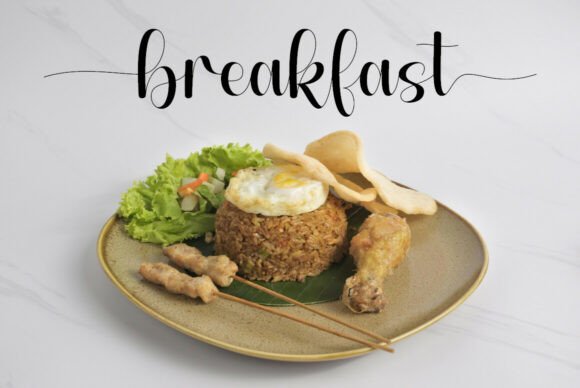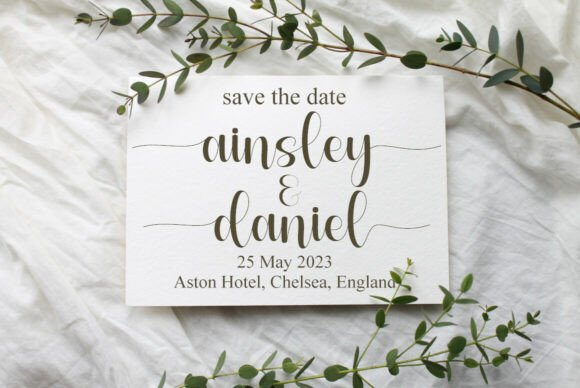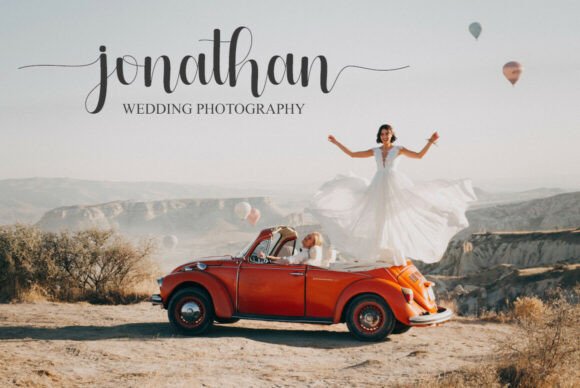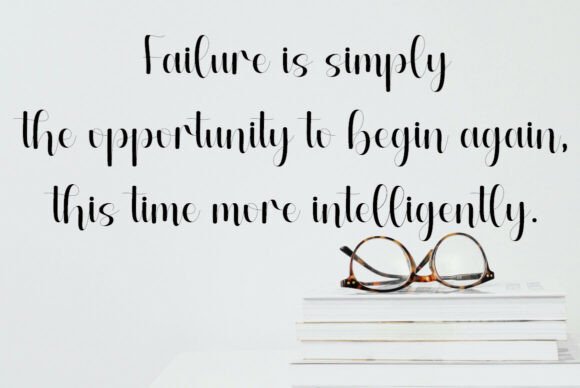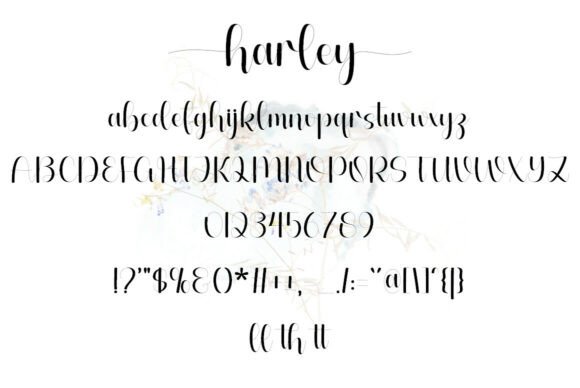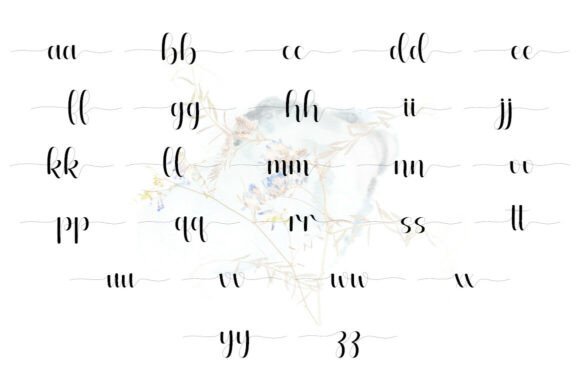
Introducing Harley Font: Your New Go-To Handwritten Font
Are you tired of using the same old fonts for your designs, crafts, and presentations? Look no further! Harley Font is a simple and friendly handwritten font that’s perfect for any occasion. In this article, we’ll dive into the features and benefits of Harley Font, and explore how it can become your new favorite font.
What is Harley Font?
Harley Font is a beautiful, handwritten font that’s designed to be versatile and easy to use. Whether you’re a designer, crafter, or simply someone who loves to create, Harley Font is the perfect addition to your font collection. Its simple and friendly design makes it suitable for a wide range of projects, from digital designs and presentations to greeting cards and crafts.
Key Features of Harley Font
- PUA Encoded: Harley Font is PUA (Private Use Area) encoded, which means you can access all of the glyphs and alternates with ease. This makes it simple to customize your text and add a personal touch to your designs.
- Simple and Friendly Design: Harley Font has a clean and approachable design that’s perfect for creating a warm and inviting atmosphere in your designs.
- Versatile: Harley Font is suitable for a wide range of projects, from digital designs and presentations to greeting cards and crafts.
Benefits of Using Harley Font
So, why should you choose Harley Font for your next project? Here are just a few benefits of using this amazing font:
- Easy to Read: Harley Font is clear and easy to read, making it perfect for body text and headings.
- Customizable: With PUA encoding, you can access a range of glyphs and alternates to customize your text and add a personal touch to your designs.
- Time-Saving: Harley Font is designed to be versatile, so you can use it for a wide range of projects without having to switch fonts.
- Unique: Harley Font has a unique and distinctive design that will set your designs apart from the crowd.
Use Cases for Harley Font
So, what can you use Harley Font for? The possibilities are endless! Here are a few ideas to get you started:
- Crafts: Use Harley Font to add a personal touch to your crafts, such as scrapbooking, journaling, and card making.
- Digital Design: Harley Font is perfect for digital designs, such as social media graphics, blog posts, and website headers.
- Presentations: Add a touch of personality to your presentations with Harley Font.
- Greeting Cards: Use Harley Font to create beautiful and unique greeting cards for any occasion.
Tips for Using Harley Font
Here are a few tips for getting the most out of Harley Font:
- Experiment with Different Sizes: Harley Font looks great in a range of sizes, from small body text to large headings.
- Mix and Match: Combine Harley Font with other fonts to create a unique and interesting design.
- Use the Glyphs and Alternates: Take advantage of the PUA encoding to access a range of glyphs and alternates and add a personal touch to your designs.
| Font Name | Harley Font |
| Author | Hardiboy Design |
In conclusion, Harley Font is a simple and friendly handwritten font that’s perfect for any occasion. With its PUA encoding, versatile design, and range of use cases, it’s the perfect addition to any designer’s or crafter’s font collection. Whether you’re creating digital designs, crafts, presentations, or greeting cards, Harley Font is sure to become your new go-to font.